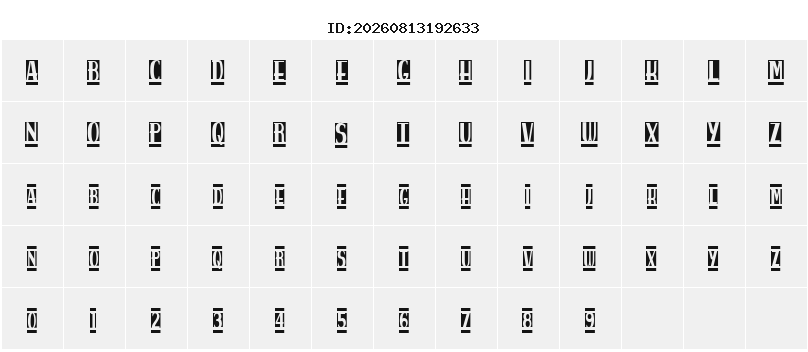
spanky's bungalow blanco Preview
• Font Name: spanky's bungalow blanco
• Font Style: regular
• Full Font Name: spanky's bungalow blanco
About spanky's bungalow blanco.ttf
spanky's bungalow blanco.ttf is a modern, elegant sans-serif font designed for ultimate readability and visual harmony. Perfect for branding, headlines, web design, and print materials.